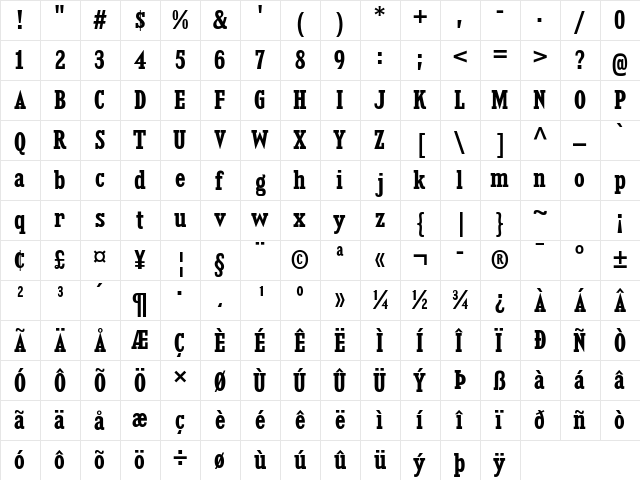
Kingsbridge Condensed Bold Font Preview
Kingsbridge Condensed Bold
Design Context for Kingsbridge Typeface
Kingsbridge offers clean, dependable letterforms without strong stylistic allegiance, making it a practical choice for designers who need flexibility. Its bold stroke weight gives it real presence on the page. The condensed width makes it efficient for tight spaces without sacrificing legibility.